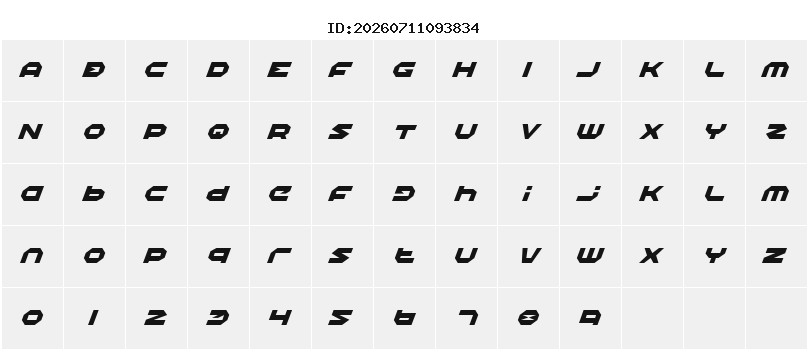
Halo Italic Preview
• Font Name: Halo Italic
• Font ID: Halo Italic
• Full Font Name: Halo Italic
• PostScript Name: HaloItalic
About Halo Italic.ttf
Halo Italic.ttf is a modern, elegant sans-serif font designed for ultimate readability and visual harmony. Perfect for branding, headlines, web design, and print materials.